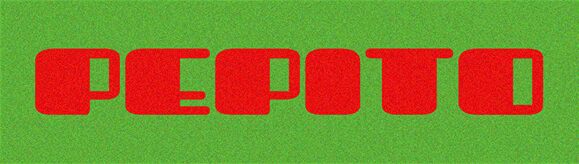
Pepito Extravagant Regular
Pepito Extravagant font designed by Vladimir Nikolic is a retro display font with a bold weight and an expanded width. Its shape structure is rounded, minimalist, and geometric which makes the overall appearance pleasant without however being too loud. Pepito captures the beauty of modern style in its artistic letter design.
Pepito Extravagant is ideal for brand identities, typesetting big-sized typographic titles, nature and travel print magazines, and creative logos. Written quote cards shared on social media also get enhance with this free typeface which supports lettering posters as well as typing product packages.